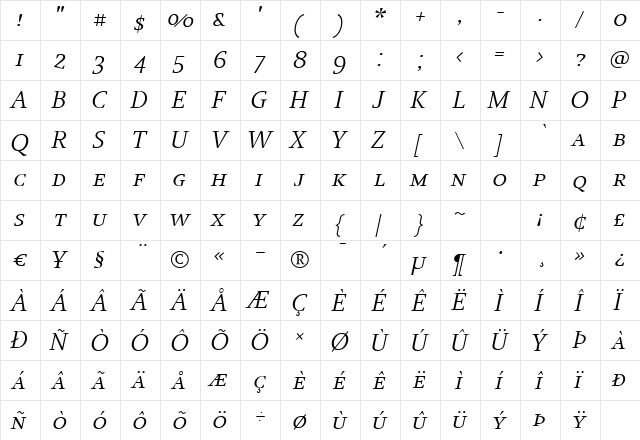
JudeLightSmallCapsItalic Regular Font Preview
Design Context for JudeLightSmallCapsItalic Typeface
JudeLightSmallCapsItalic offers clean, dependable letterforms without strong stylistic allegiance, making it a practical choice for designers who need flexibility. Its italic angle brings a sense of urgency and motion to the letterforms. Its slender proportions lend an understated elegance to any composition.
Pro Tip: Try JudeLightSmallCapsItalic for annotation and caption copy alongside an upright companion — the contrast in angle creates a dynamic but ordered typographic system.